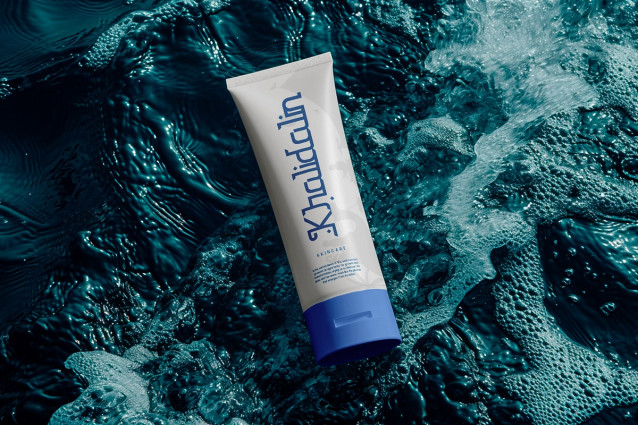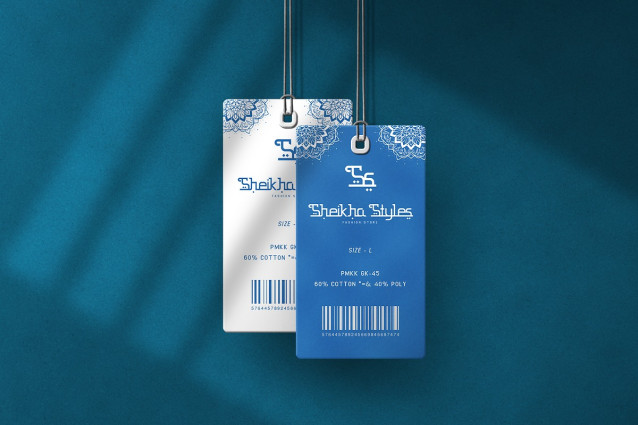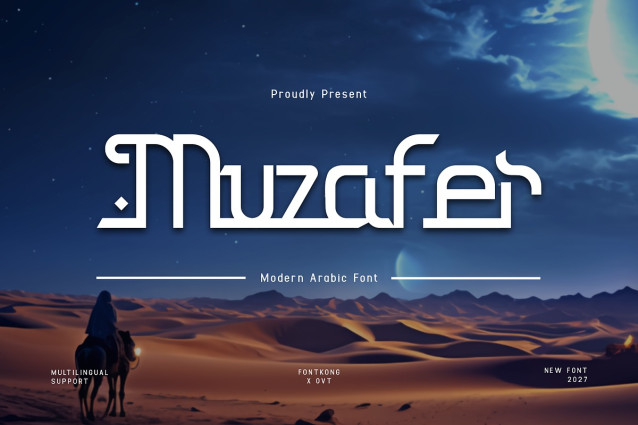
Muzafer Font
Muzafer Font is a contemporary Arabic font that merges traditional calligraphic elegance with modern design elements. Its clean curves and well-balanced letterforms make it an excellent choice for various projects, including branding, invitations, editorial layouts, product packaging, and web content. Muzafer offers exceptional readability while maintaining a refined aesthetic, making it ideal for both formal and creative applications.
This versatile font works perfectly in bilingual designs, ensuring seamless integration between Arabic and Latin typography. Whether used in luxury branding, corporate materials, or digital campaigns, Muzafer elevates your projects with sophistication and style. Its modern approach to Arabic script makes it suitable for high-end businesses, fashion labels, and artistic ventures.
With Muzafer, your designs gain a unique touch of tradition and contemporary flair, creating a captivating visual identity for any project.